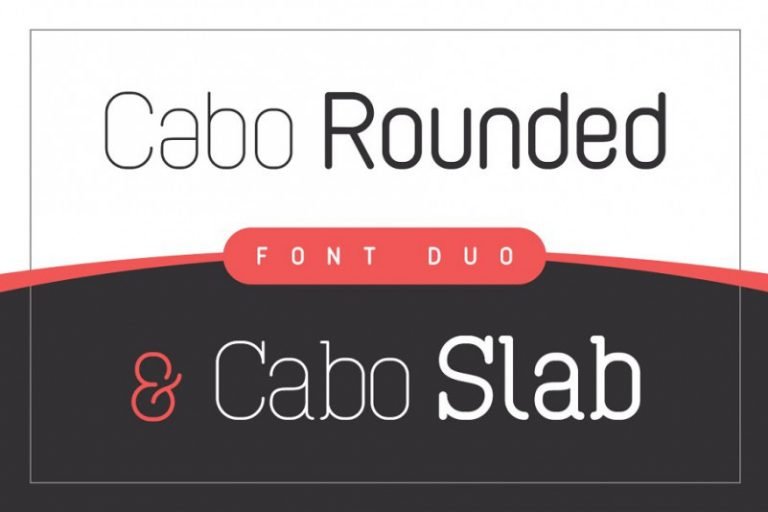
Cabo Rounded and Slab Font Duo
Hi designer! This is new, bold, clean and elegant high contrast serif with contrasting weight and dramatic effect, wich perfectly combines with slab serif looking very natural and fashionable at the same time. Introducing Cabo Rounded and Slab Font Duo. It is designed and shared by Design a Lot. Cabo Typefaces, a font duo made of a sans-serif and a slab serif typeface. Both come with a soft and modern style, defined by their rounded edges and terminations. These typefaces work with any type of projects and excel in logotype and branding. Each come in multiple weights and styles.